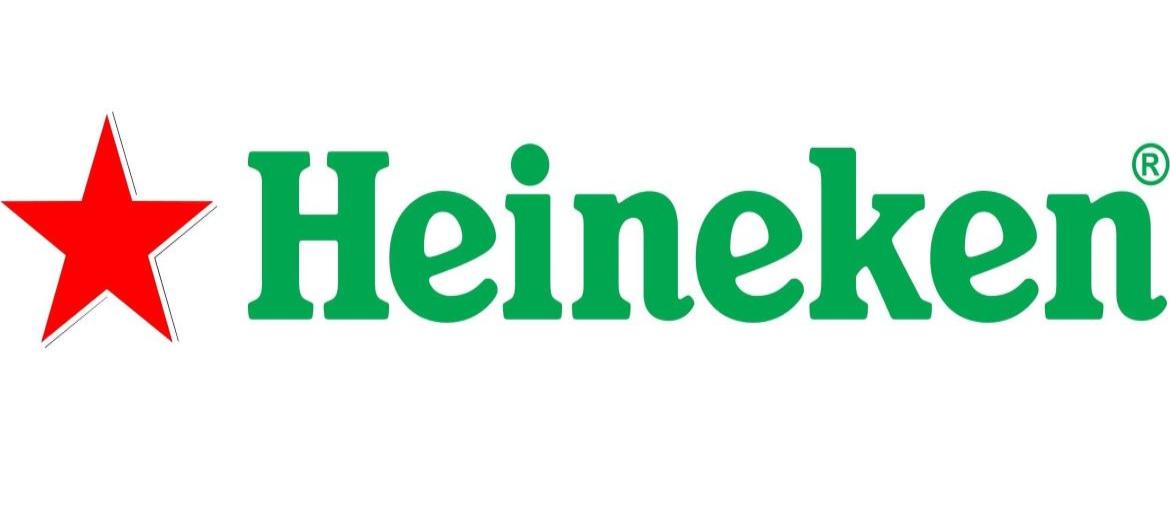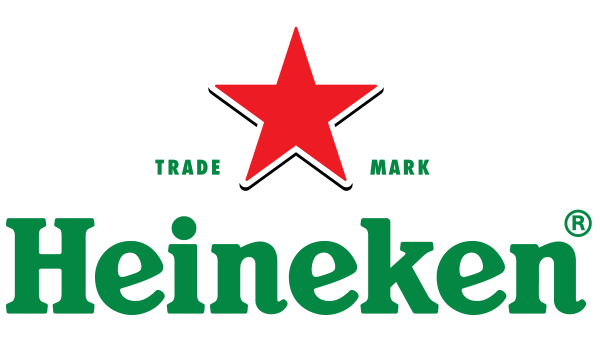
Heineken Font
What Font is Used in the Heineken Logo?
The Heineken font is most likely a custom-designed typeface, created exclusively to represent the brand’s rich heritage and timeless appeal. The font’s clean lines and balanced letterforms reflect the premium quality and craftsmanship that Heineken is known for worldwide. While the original custom font isn’t available for public use, there’s a very similar free font that closely matches its elegant and classic look. You can explore this alternative in the link below to recreate the authentic Heineken-style lettering in your own projects.